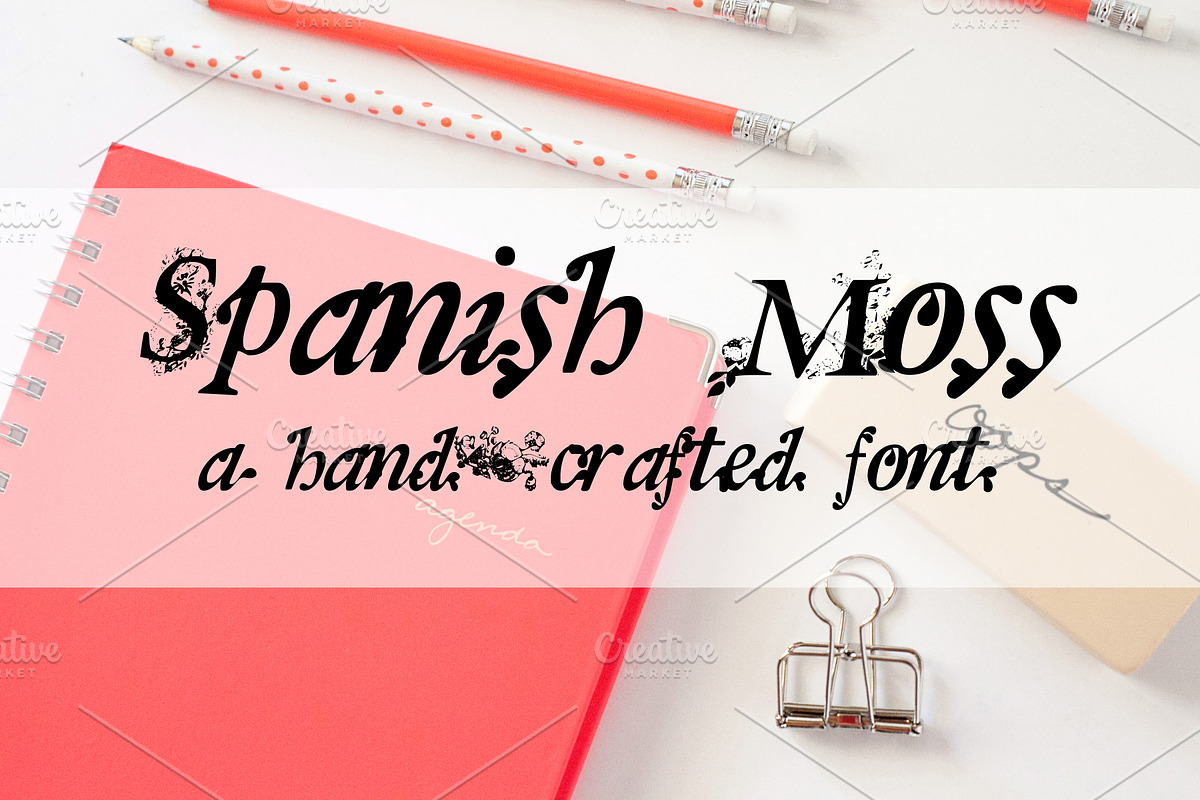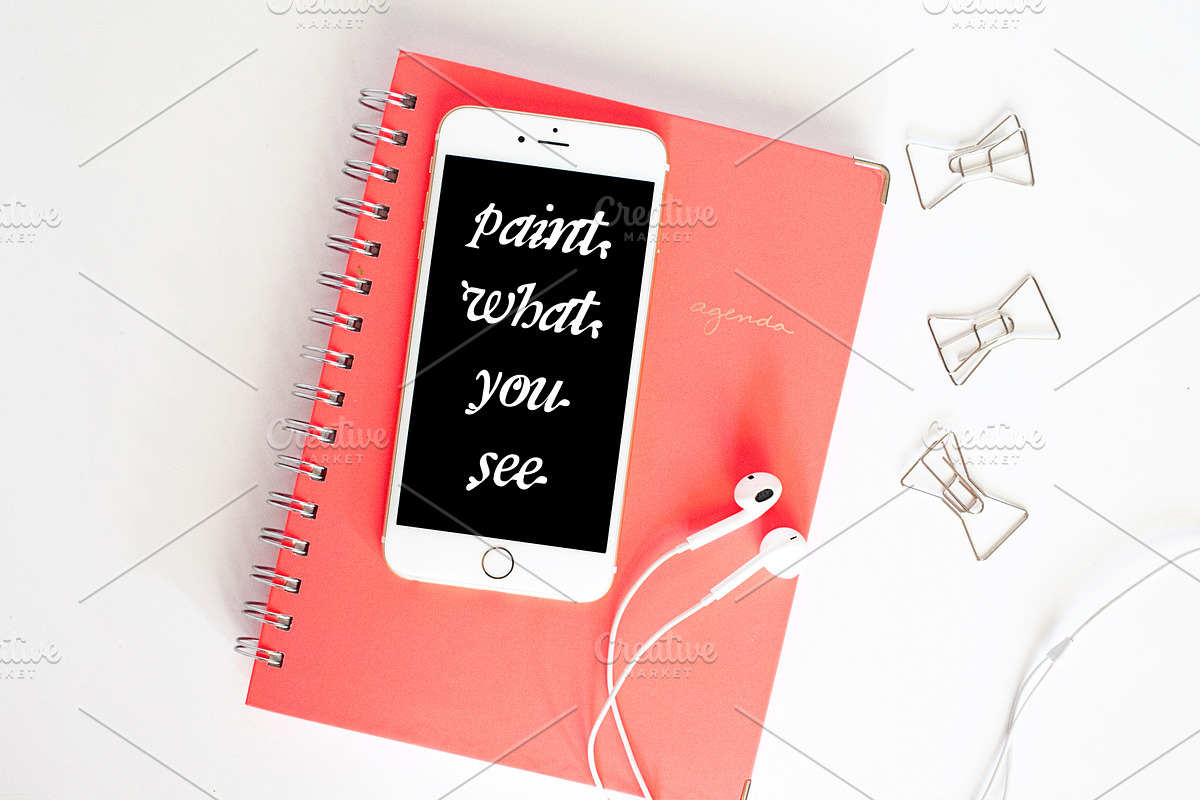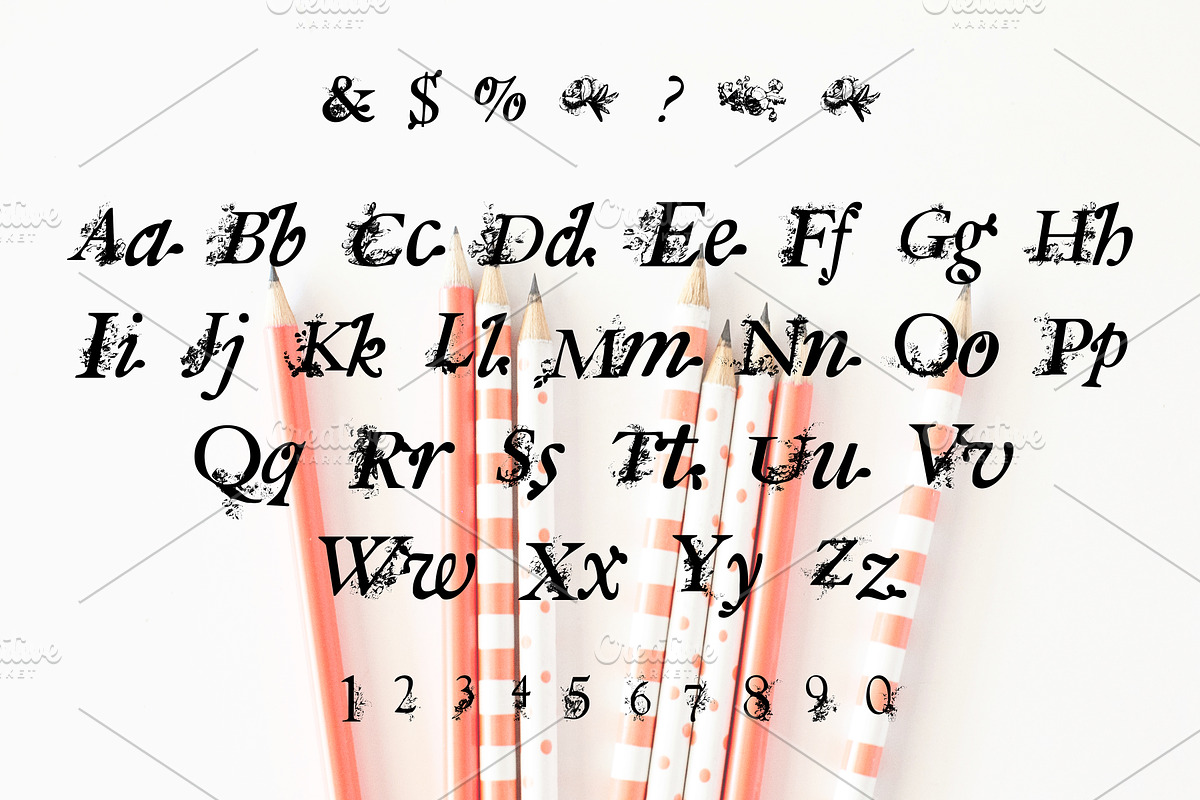
SPANISH MOSS Hand Crafted Font
SPANISH MOSS Hand Crafted Font by Rhonna Designs is a font selected for branding, posters, packaging, typography.
SPANISH MOSS Hand Crafted Font by Rhonna Designs fits naturally into Branding, posters, packaging, typography.